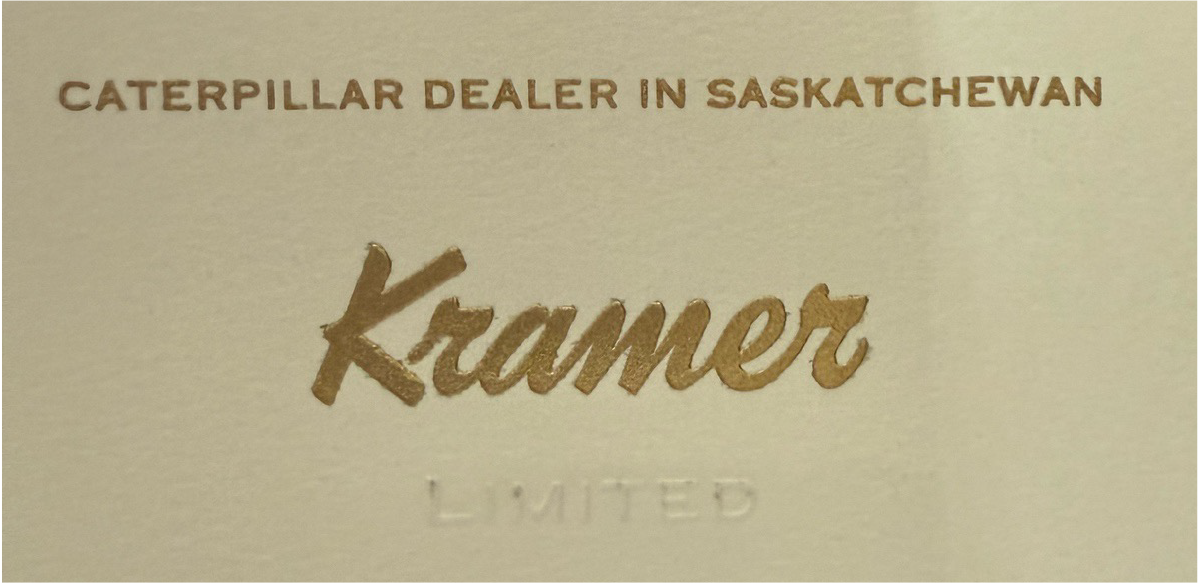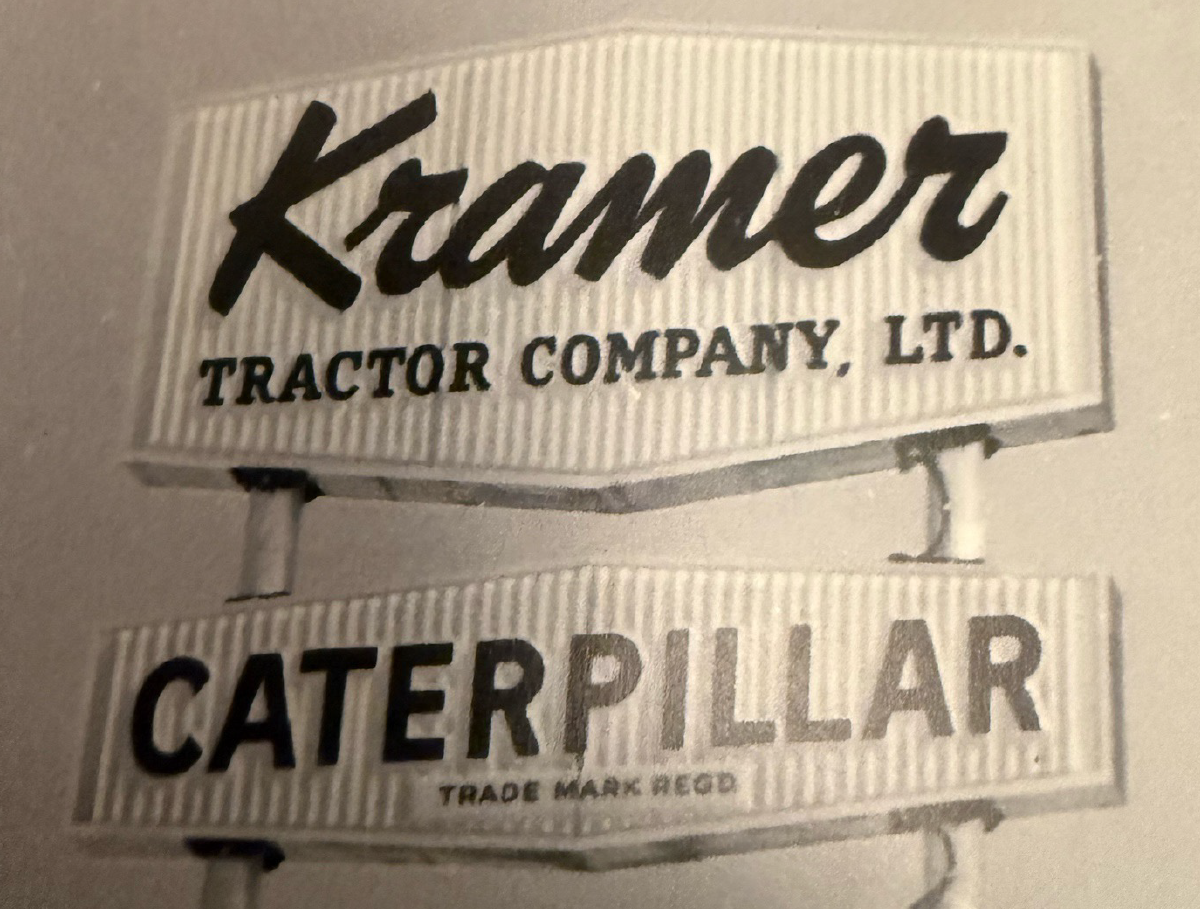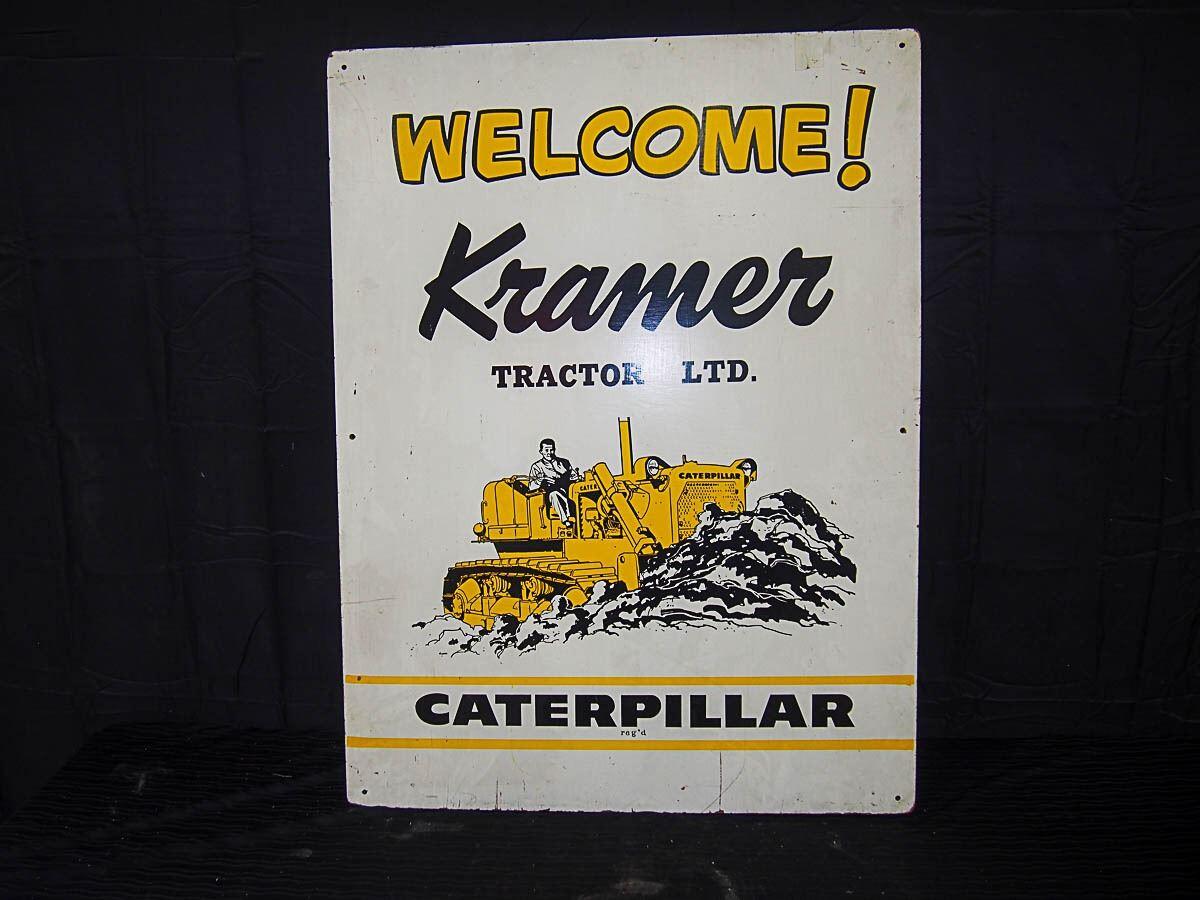
Identification of mid-century script for a tractor company
As far as I know this is the original logo for Kramer Tractor Company. The company was located in Regina, Calgary, Canada and started sometime in the 20s. For sentimental reasons, my client wants me to get as close as I can to re-creating this writing for a new logo design.
I'm hoping someone here is great at identifying scripts so I can get a typeface that's as close as possible. I've already tried several automated font identification tools. Coffee Service by Sideshow gets me close, but I hope I'm missing something better.